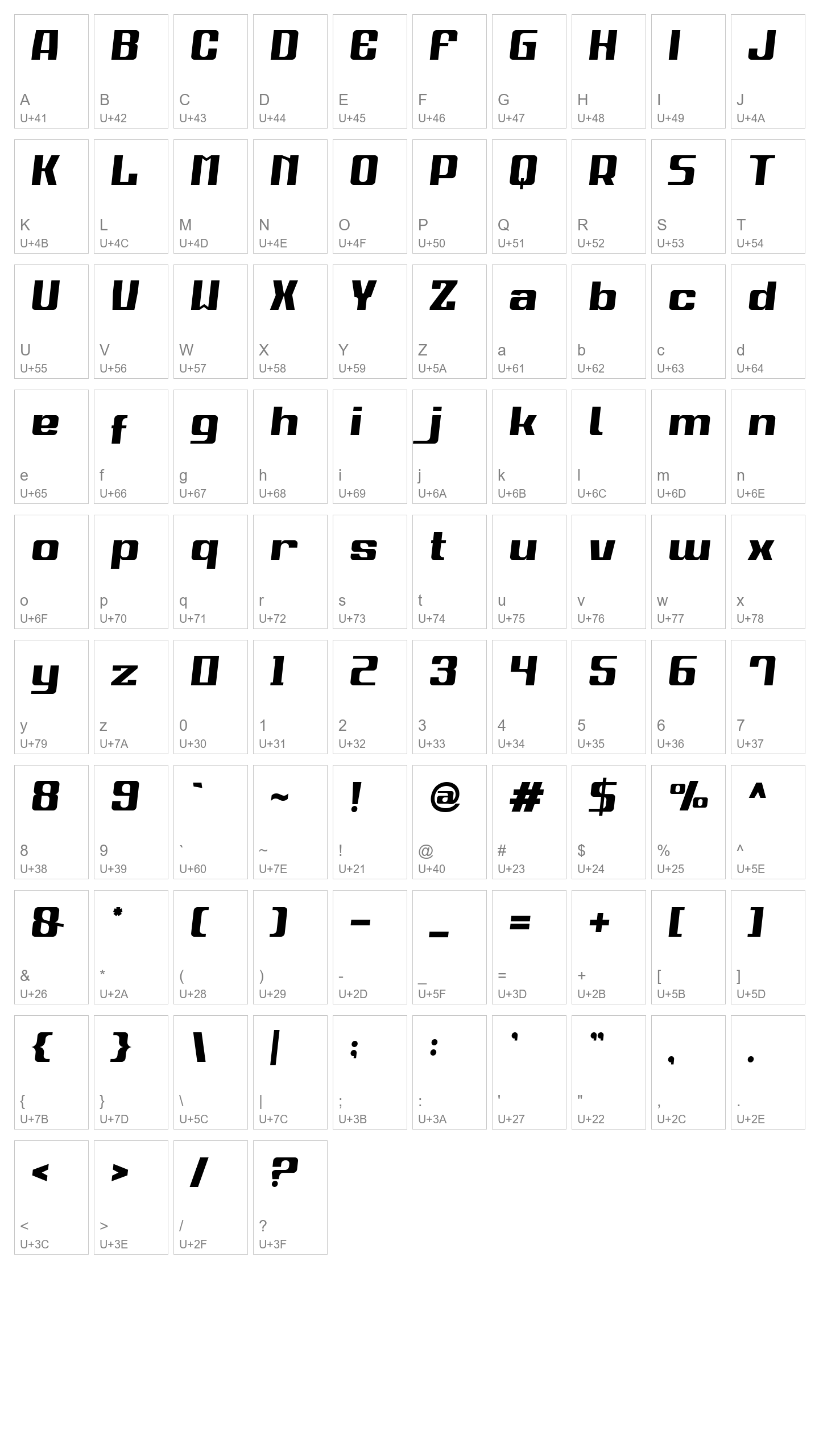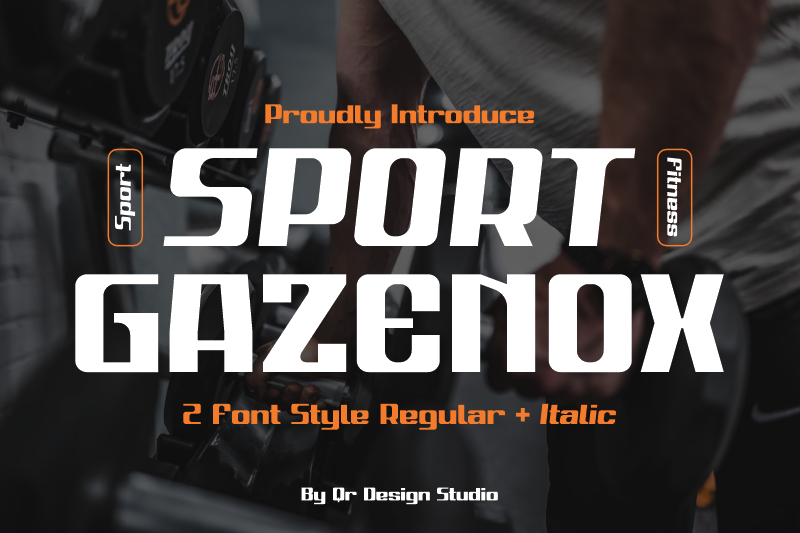
Sport Gazenox
Sport Gazenox Font is a bold and authentic display font.
The font is suitable for any branding project like logo, sport, and many more.
Outstanding in a wide range of contexts.